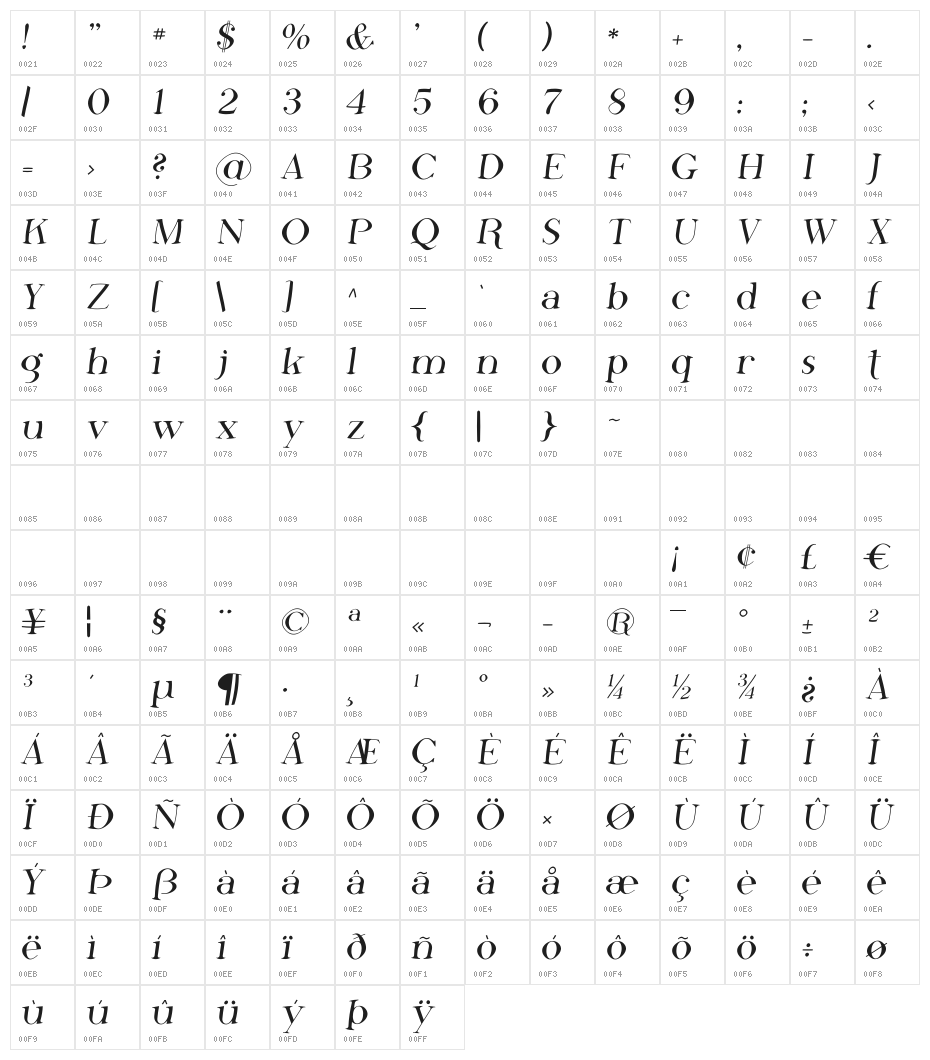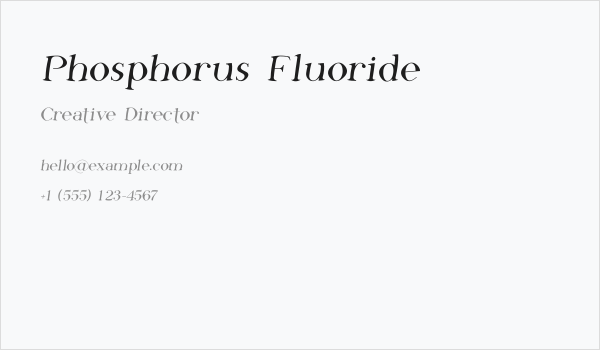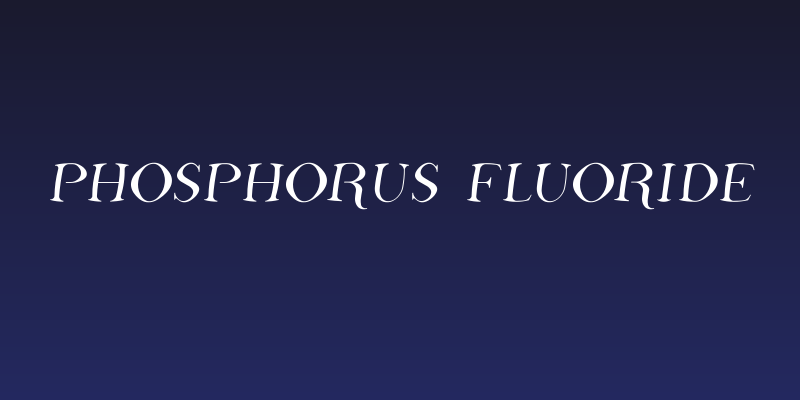
Phosphorus Fluoride Font
Phosphorus Fluoride Description
This font exhibits a classic and elegant design, characterized by its flowing and slightly italicized letterforms. The strokes are smooth and exhibit a moderate contrast, with thin lines gracefully transitioning into thicker curves. The serifs are subtle yet pronounced, adding a touch of sophistication. The overall appearance is refined, making it suitable for formal and artistic applications. The numerals are consistent with the letterforms, maintaining the same elegant style. Special characters are well-integrated, ensuring a cohesive look across all elements.
| Proposed Projects | Ideal for wedding invitations, formal event programs, luxury brand logos, and editorial design. |